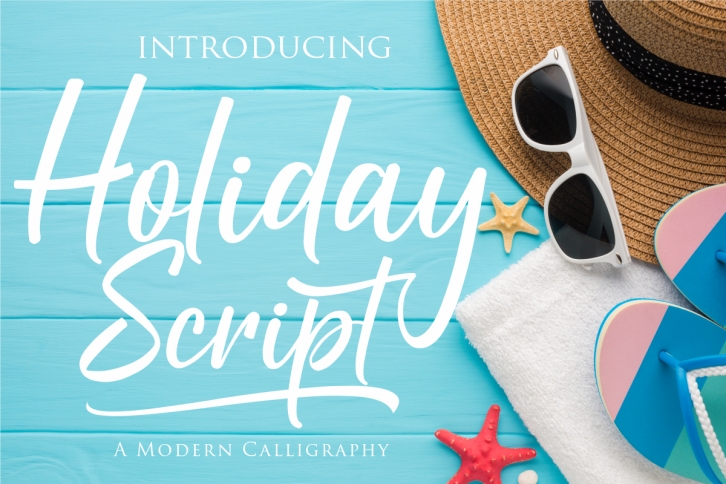
Introducing Holiday Script ! A Modern and Fresh Script Calligraphy font with a lot of stylistic alternate make this font looks natural, elegant, and perfect for any awesome projects.
Holiday Script is perfect for many different project such as logos & branding, invitation, stationery, wedding designs, social media posts, advertisements, product packaging, product designs, label, photography, watermark, special events,greeting cards, signatures, handwriting or anything
Holiday Script was created with multilingual support and over 38 ligatures, allowing you to create a real hand-written look to your projects. This feature works best in programs that support OpenType features, such as Adobe Indesign CS, Adobe Illustrator CS, Corel draw 2019 or Adobe Photoshop CC
Holiday Script is perfect for many different project such as logos & branding, invitation, stationery, wedding designs, social media posts, advertisements, product packaging, product designs, label, photography, watermark, special events,greeting cards, signatures, handwriting or anything
Holiday Script was created with multilingual support and over 38 ligatures, allowing you to create a real hand-written look to your projects. This feature works best in programs that support OpenType features, such as Adobe Indesign CS, Adobe Illustrator CS, Corel draw 2019 or Adobe Photoshop CC.
You can mix and match with Opentype feature:
38 ligature
More than 354 of glyphs
stylistic alternates
9 stylistic sets
Multilingual support